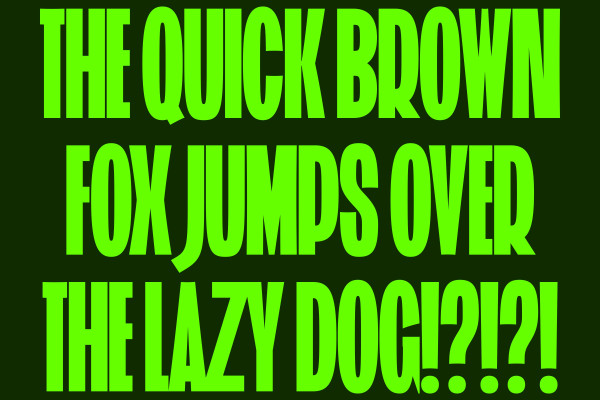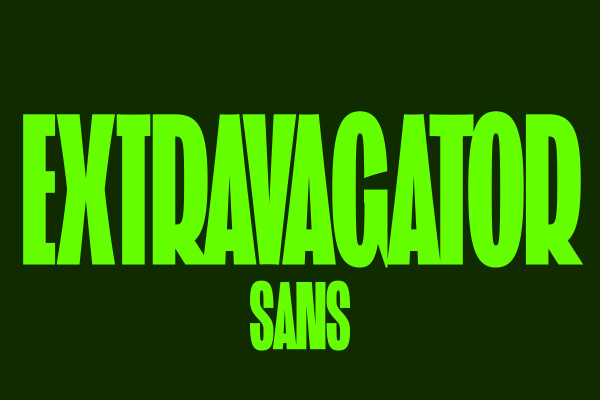
ST Extravagator Sans Font
ST Extravagator Sans Font is a sample of my upcoming variable width typeface. This sample font is free for personal, non-commercial use. Extravagator Sans is perfect for logos, branding, magazine headlines and posters.